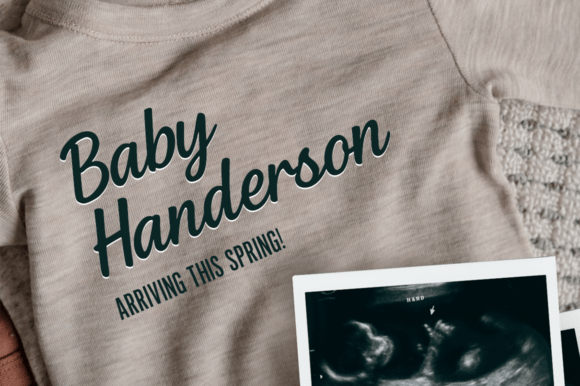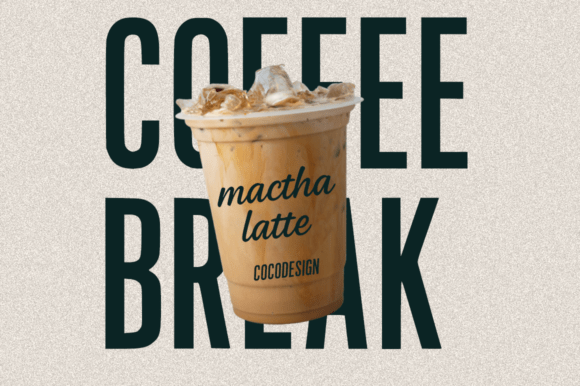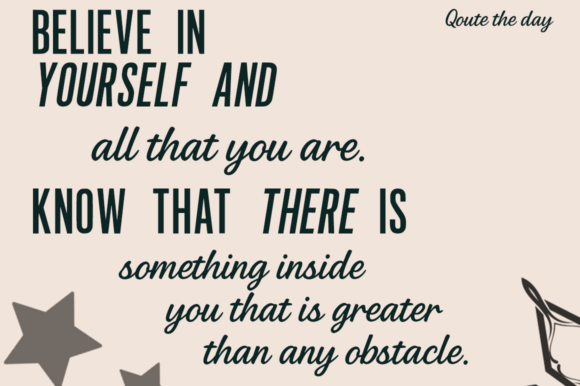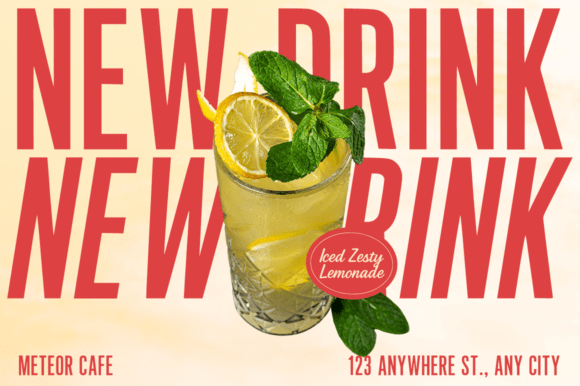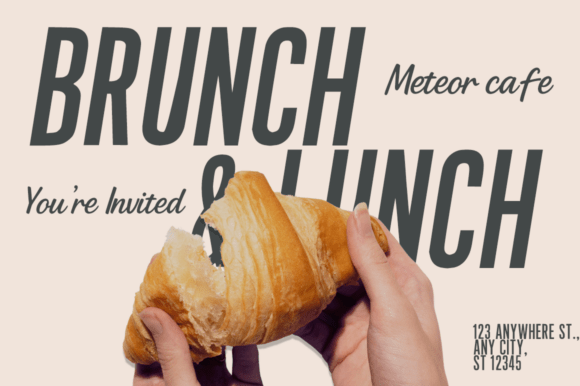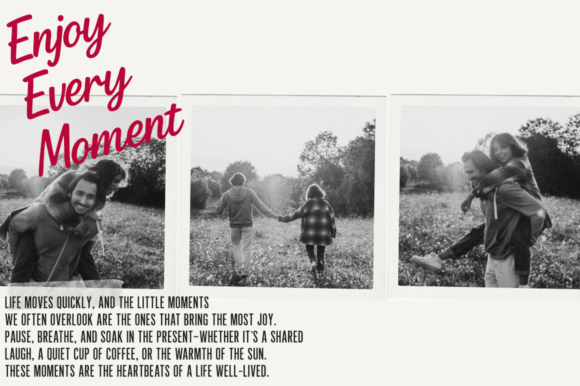
Unleash the Magic of Garlic Shine Font: A Dynamic Duo for Designers
Are you tired of using the same old fonts in your designs? Look no further than the captivating Garlic Shine Font, a spectacular Font Duo Bundle that is sure to elevate your creative projects. This enchanting pair of fonts combines the confidence of modern sans serif with the elegance of handwritten script, making it an unbeatable choice for designers and crafters alike.
The Perfect Balance of Boldness and Elegance
Garlic Shine Font is a masterful blend of two distinct styles, carefully crafted to provide a harmonious balance of vigor and finesse. The modern sans serif font exudes confidence and strength, while the handwritten script font adds a touch of warmth and sophistication. This dynamic duo effortlessly juxtaposes boldness and elegance, making it an ideal choice for a wide range of design endeavors.
Multifaceted and Versatile
One of the standout features of Garlic Shine Font is its multifaceted nature. This font duo is designed to cater to both strength and sophistication, making it an unmissable choice for designers who want to make a statement. Whether you’re working on a bold and edgy project or a more refined and elegant one, Garlic Shine Font has got you covered.
With Garlic Shine Font, the design possibilities are endless. You can use the modern sans serif font for headlines, titles, and other bold statements, while the handwritten script font is perfect for adding a touch of elegance to your body text, quotes, and captions. The font duo also works beautifully in combination, creating a stunning visual contrast that is sure to grab attention.
Garlic Shine Font is a must-have for designers and crafters who want to add a touch of magic to their projects. Whether you’re working on a branding project, a website design, or a craft project, this font duo is sure to inspire. The font is highly legible and versatile, making it perfect for use in a variety of applications, from digital designs to print materials.
Key Features of Garlic Shine Font
- Font Duo Bundle: Garlic Shine Font includes two distinct fonts: a modern sans serif font and a handwritten script font.
- Multifaceted Nature: The font duo caters to both strength and sophistication, making it perfect for a wide range of design endeavors.
- Highly Legible: The font is highly legible, making it perfect for use in digital designs and print materials.
- Endless Design Possibilities: The font duo offers endless design possibilities, from bold and edgy to refined and elegant.
Make a Statement with Garlic Shine Font
If you’re looking for a font that truly radiates versatility, look no further than Garlic Shine Font. This dynamic duo is sure to make a statement in any design project, adding a touch of magic and sophistication to your work. So why wait? Discover the enchanting power of Garlic Shine Font today and take your designs to the next level.
In conclusion, Garlic Shine Font is a spectacular Font Duo Bundle that is sure to captivate designers and crafters alike. With its perfect balance of boldness and elegance, multifaceted nature, and endless design possibilities, this font duo is an unbeatable choice for any design project. So why settle for ordinary fonts when you can make a statement with Garlic Shine Font?